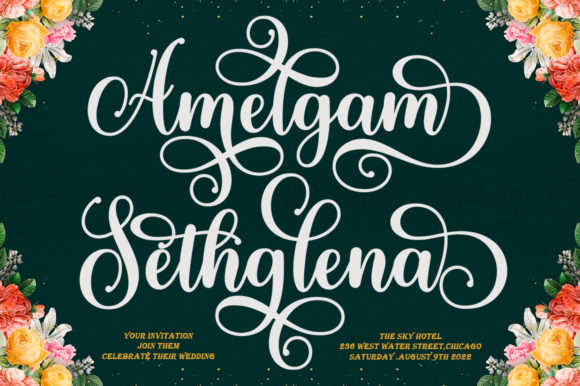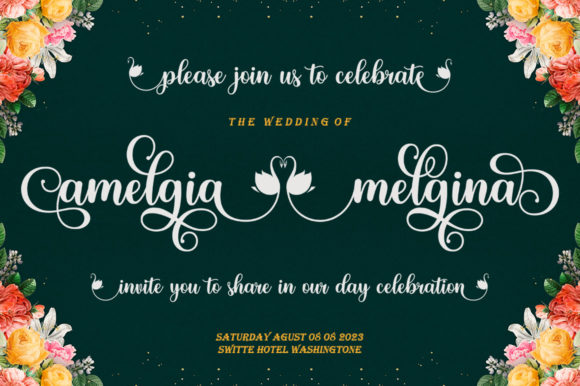
Baligline Beauty Font
db-ku.com - Script & Handwritten -- Baligline Beauty is a lovely script font featuring charming, playful characters that seem to dance along the baseline. Add this font to your most creative ideas, and notice how it makes them stand out! Baligline Beauty is PUA encoded which means you can access all of the glyphs and swashes with ease!